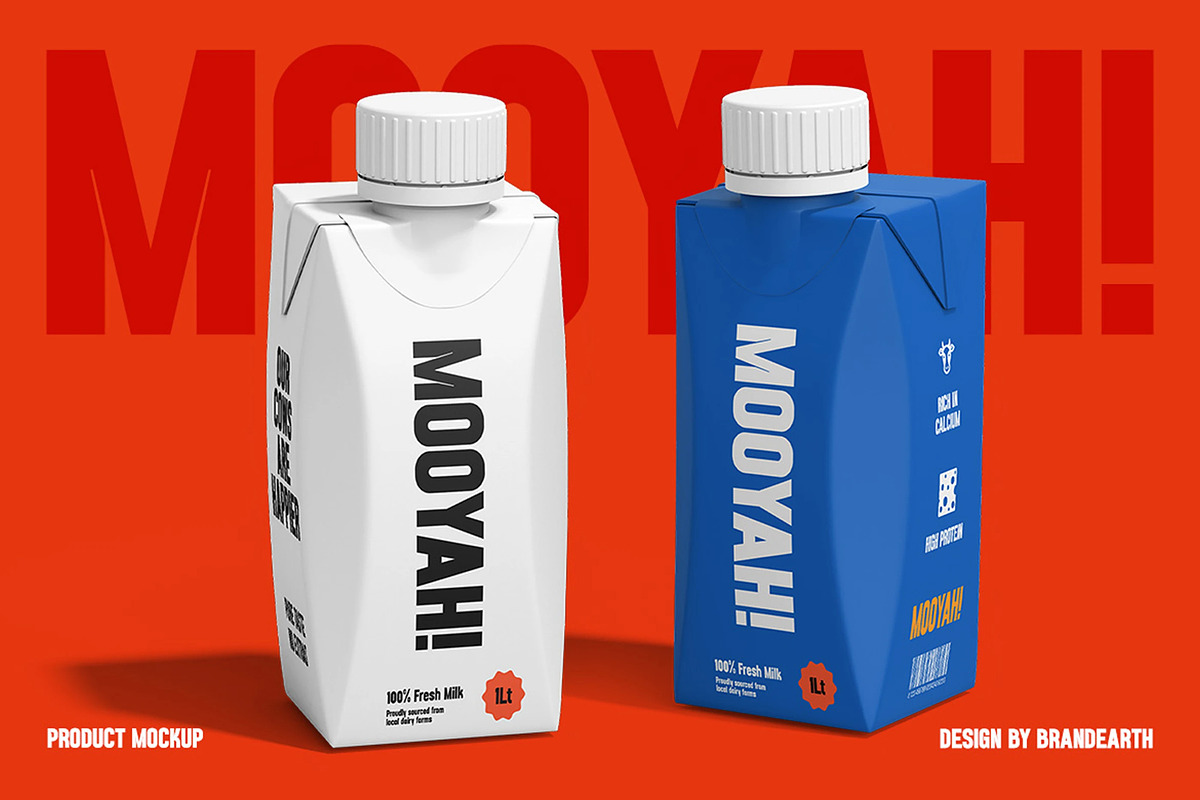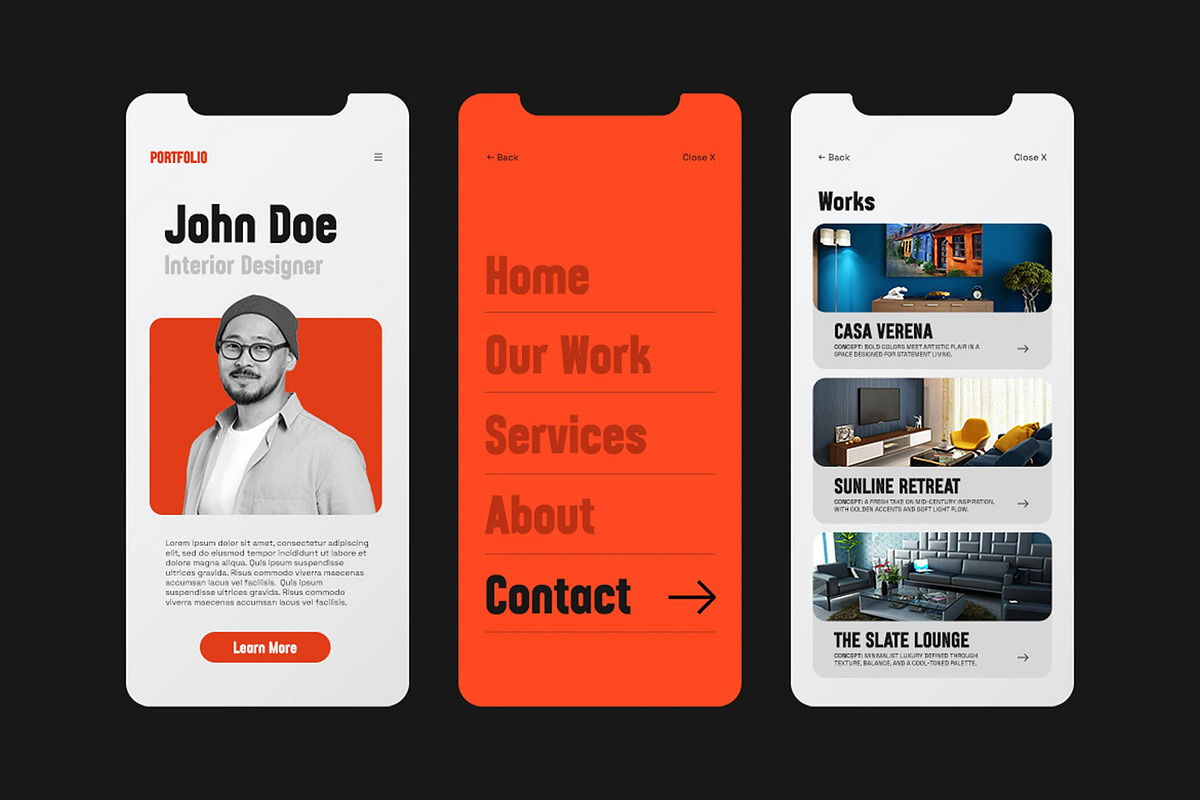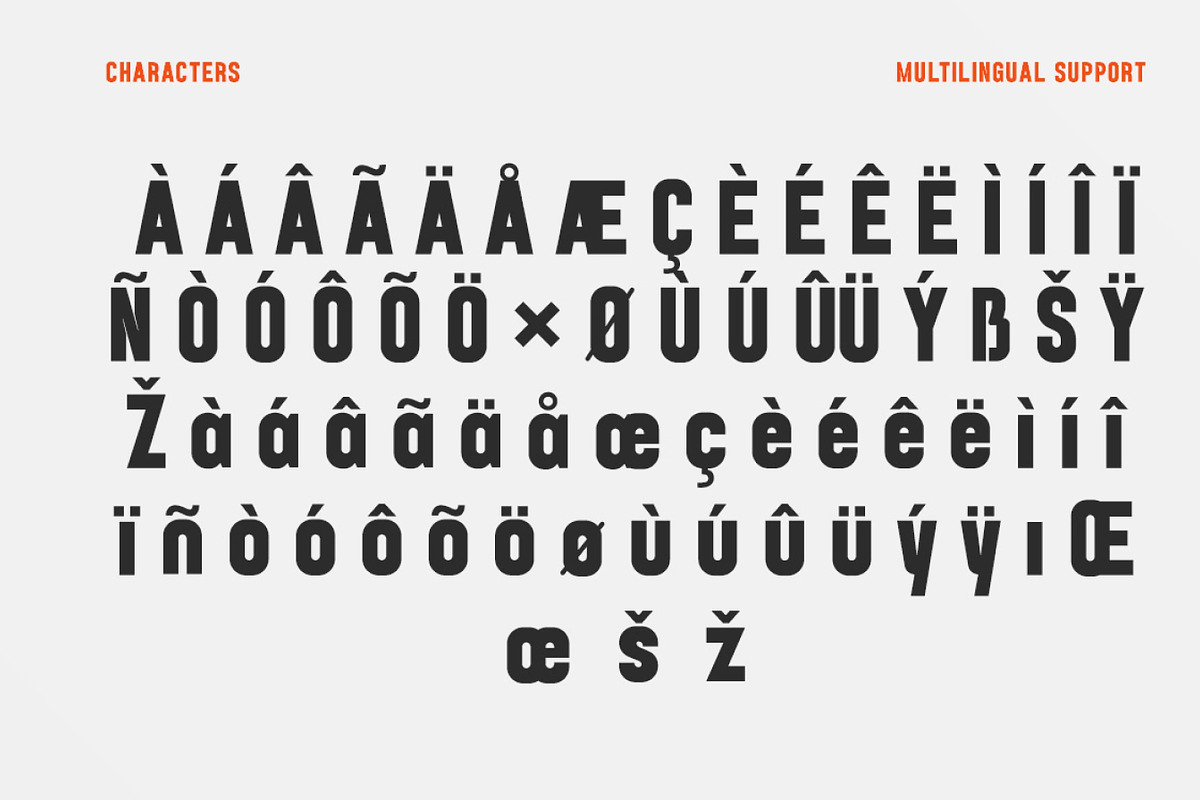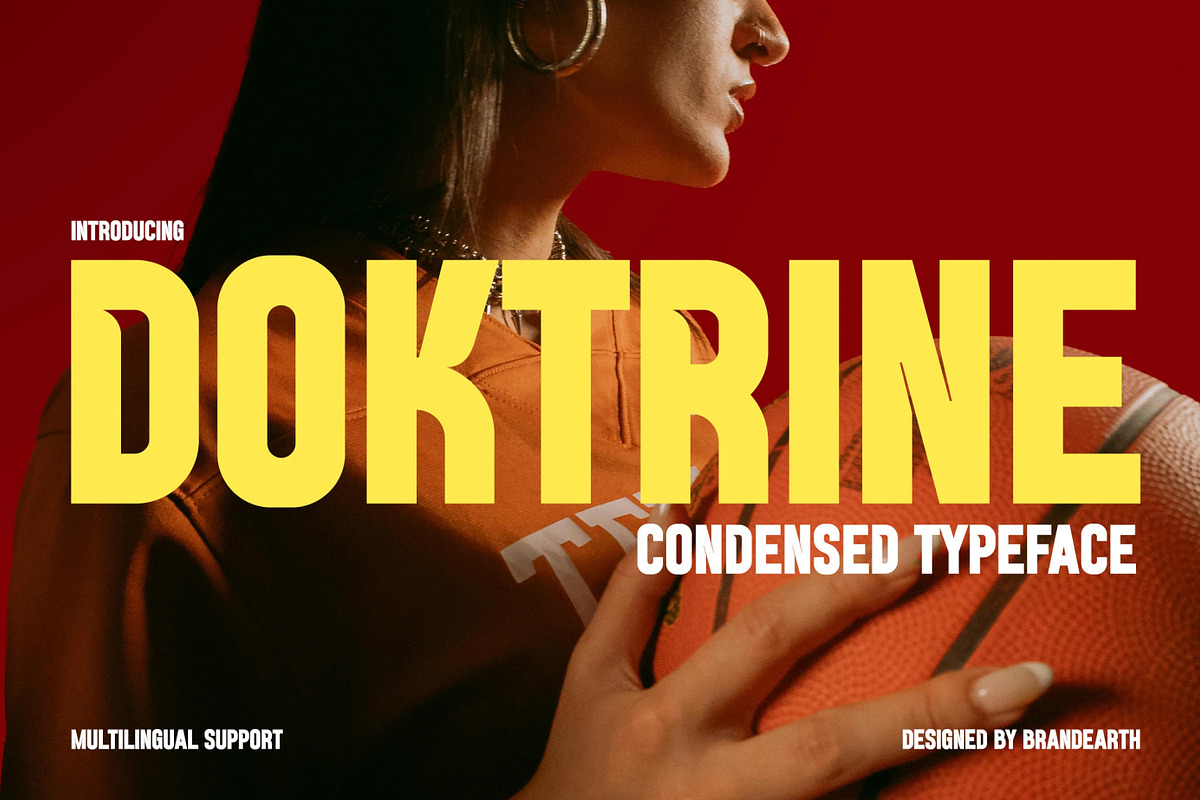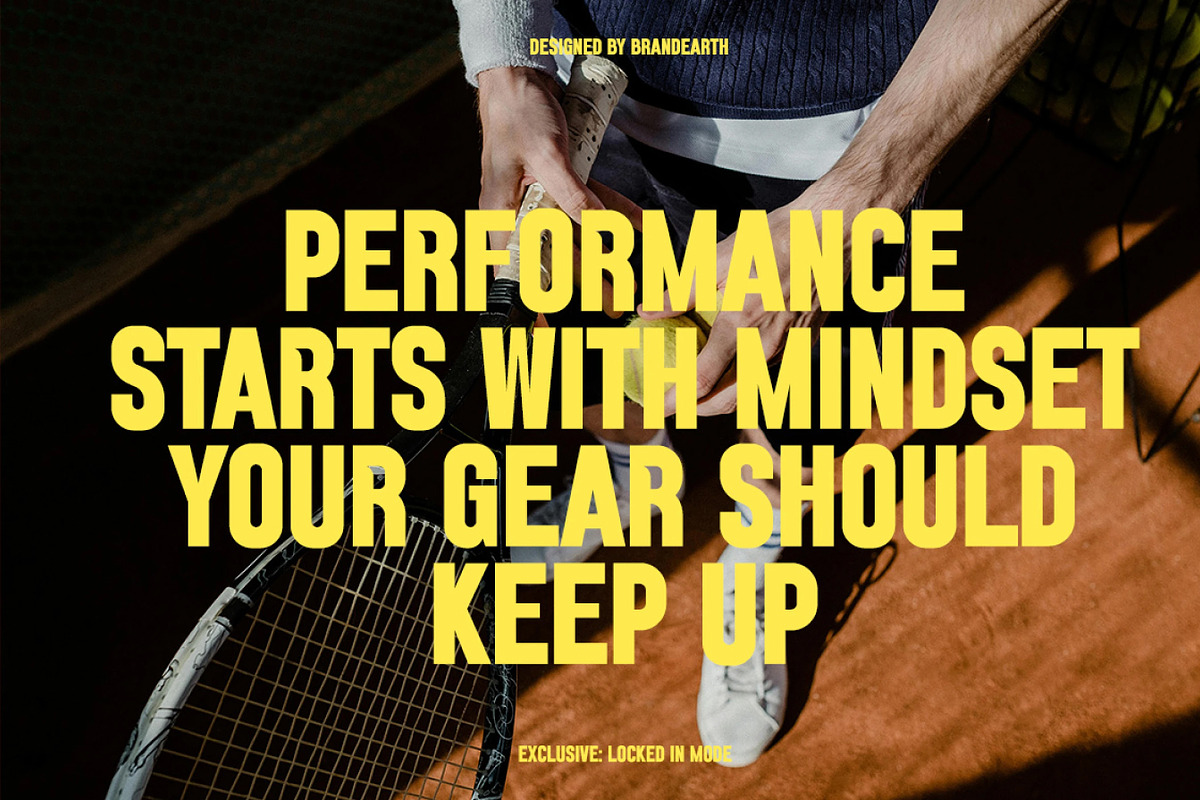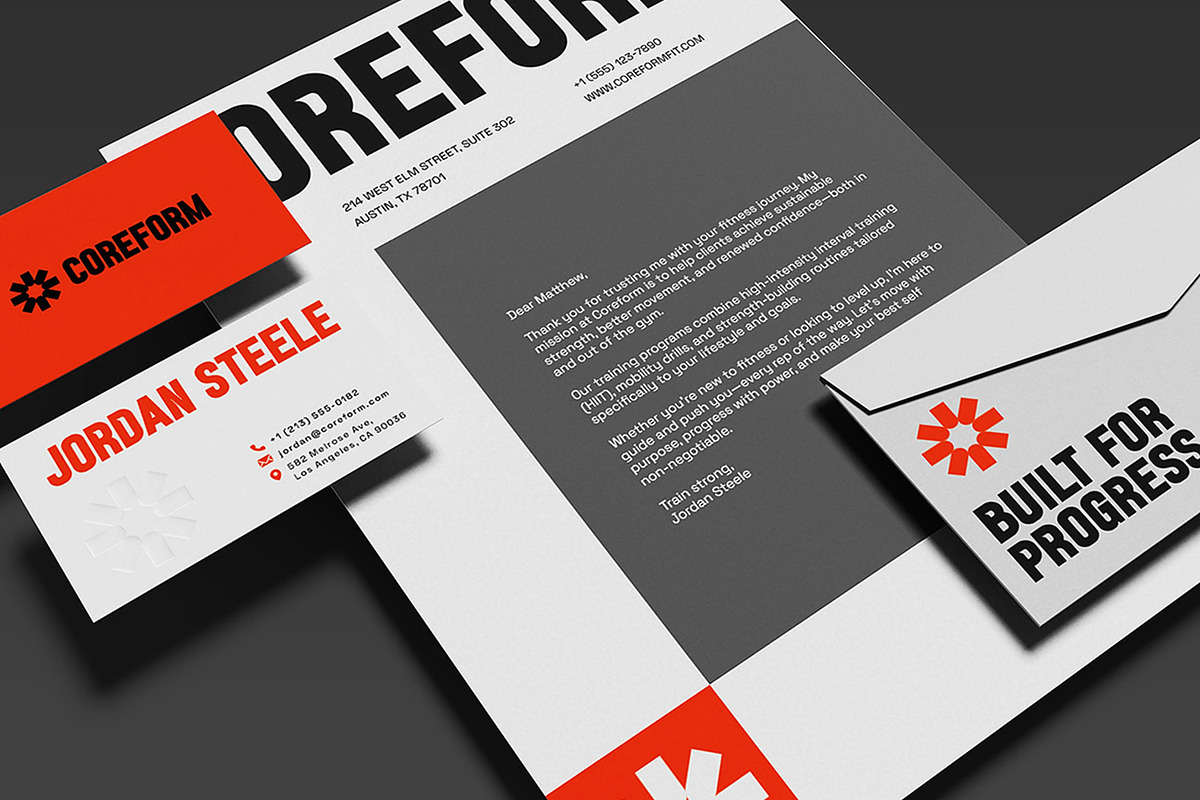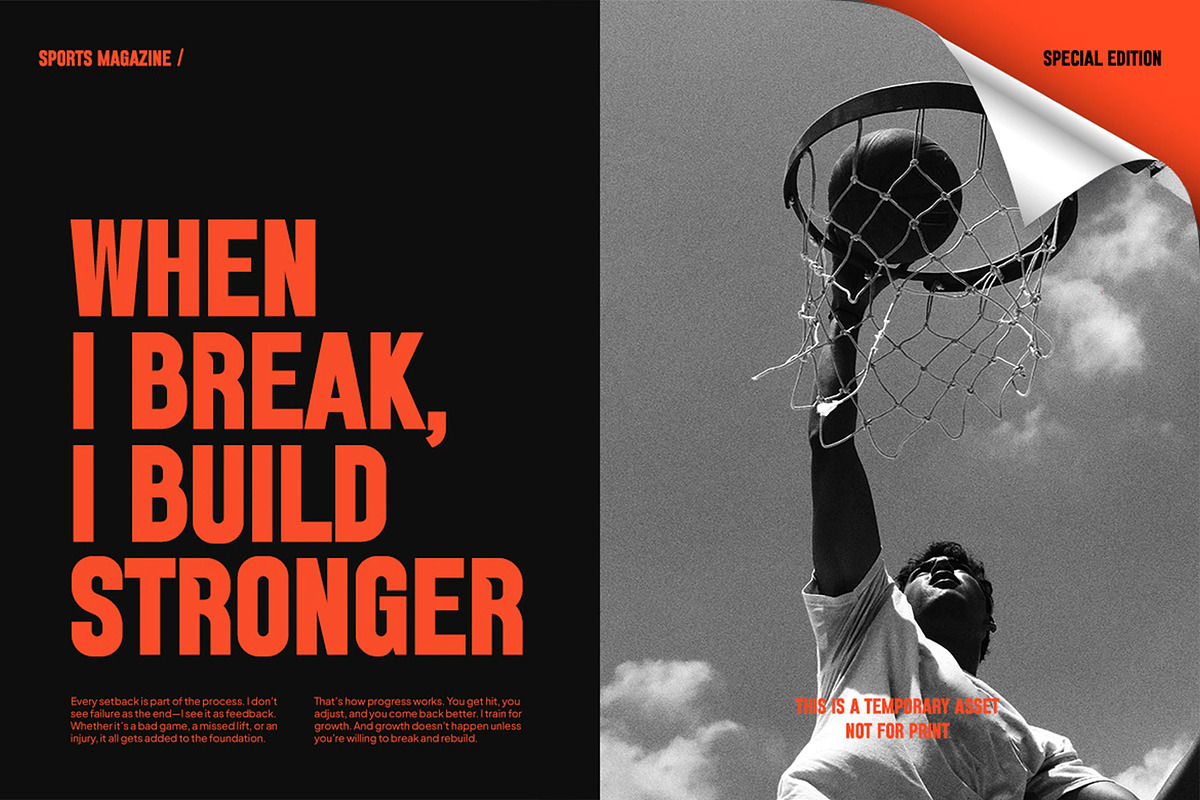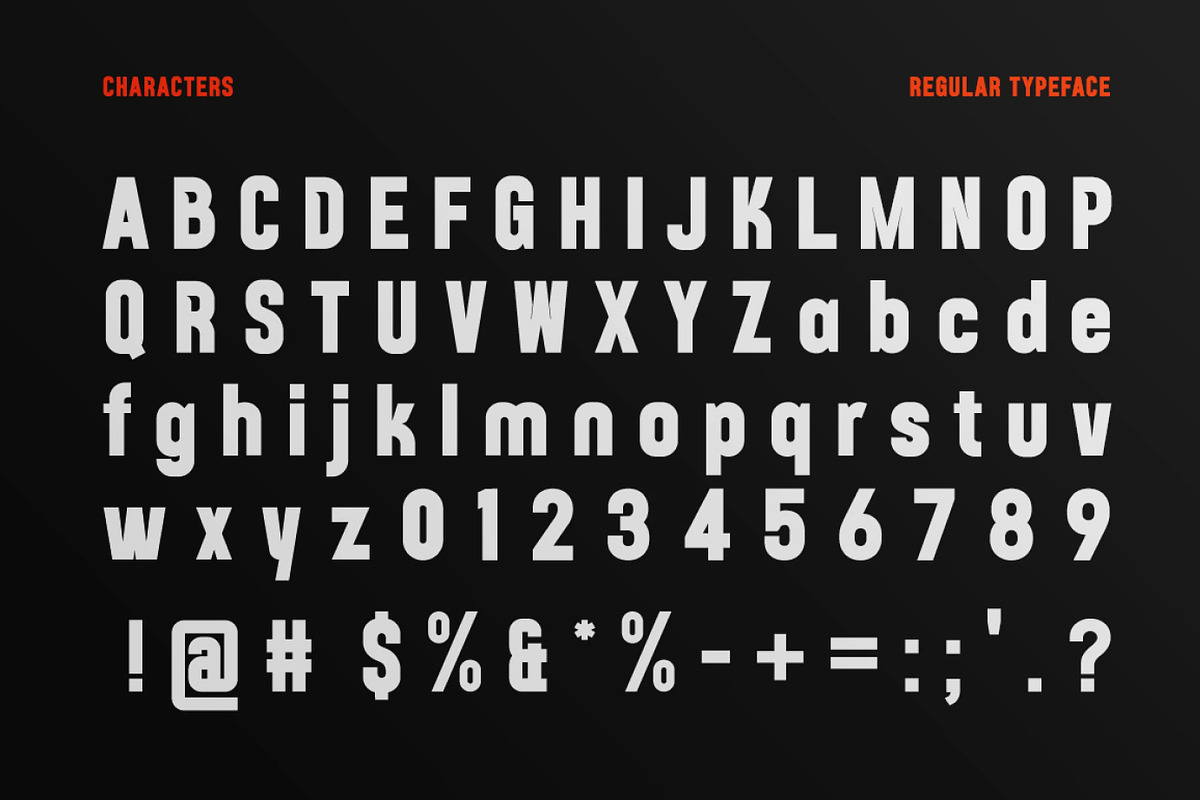
Doktrine - Bold Condensed Sans Serif
Doktrine is a bold condensed sans serif font designed for impact. With its tall letterforms, tight spacing, and solid structure, it delivers strength and clarity in every use. This typeface is ideal for athletic branding, urban posters, strong headlines, and modern editorial layouts. It supports multilingual characters and includes punctuation, making it suitable for global use in both print and digital formats. Doktrine combines raw energy with typographic precision—perfect for bold communication.
The letterforms in Doktrine are carefully crafted with tall, condensed structure, tight spacing, and a solid, high-impact rhythm that gives the typeface a strong and athletic appearance. It features a raw energy that is perfect for sports branding, urban posters, and bold editorial headlines.
With its combination of strength and typographic precision, Doktrine bridges the gap between raw impact and modern clarity. It provides a bold, commanding voice while remaining versatile, making it ideal for athletic campaigns, protest posters, and motivational graphics.
Suitable For: sports branding, athletic apparel, posters, tech campaigns, editorial layouts, magazine headers, product packaging, protest posters, motivational graphics, urban advertising, and esports branding.